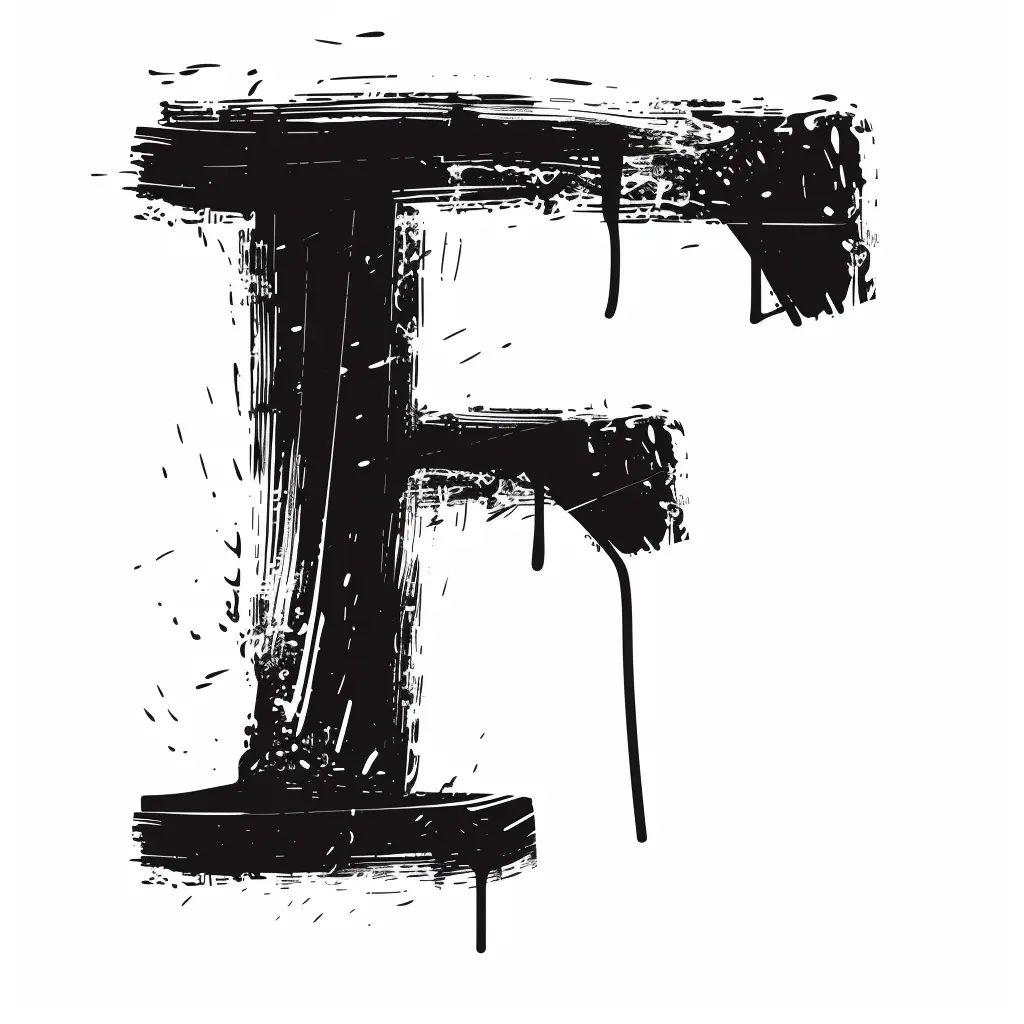
The image features a stylized, grungy letter "F" rendered in bold black against a white background. The design incorporates rough, textured brushstrokes, splatters, and dripping paint effects, giving it a raw, artistic, and slightly chaotic appearance. The high-contrast black-and-white color scheme emphasizes the letter’s rugged, hand-painted aesthetic.